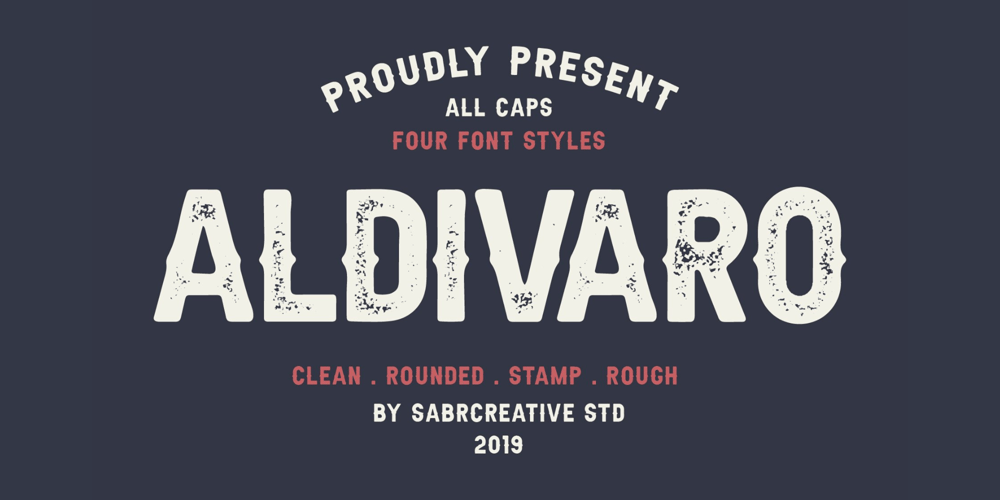
Aldivaro Font Family was designed by Irpan Maulana and published by Sabrcreative. Aldivaro contains 4 styles and family package options. Infuse your designs with a touch of vintage elegance using the Aldivaro Vintage Retro Serif Font. This exquisite typeface seamlessly merges the timeless charm of yesteryears with modern versatility, making it a must-have for designers who want to create impactful and nostalgic visuals.